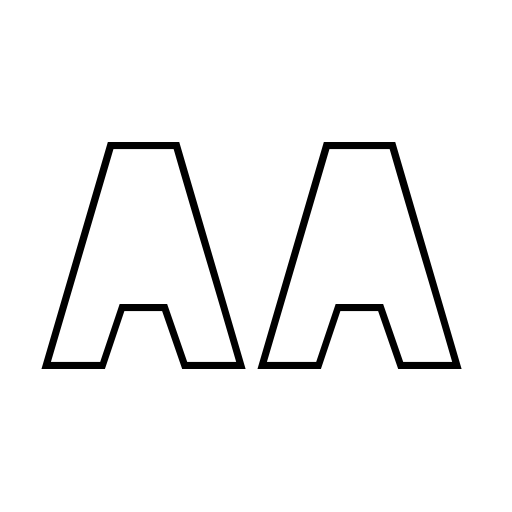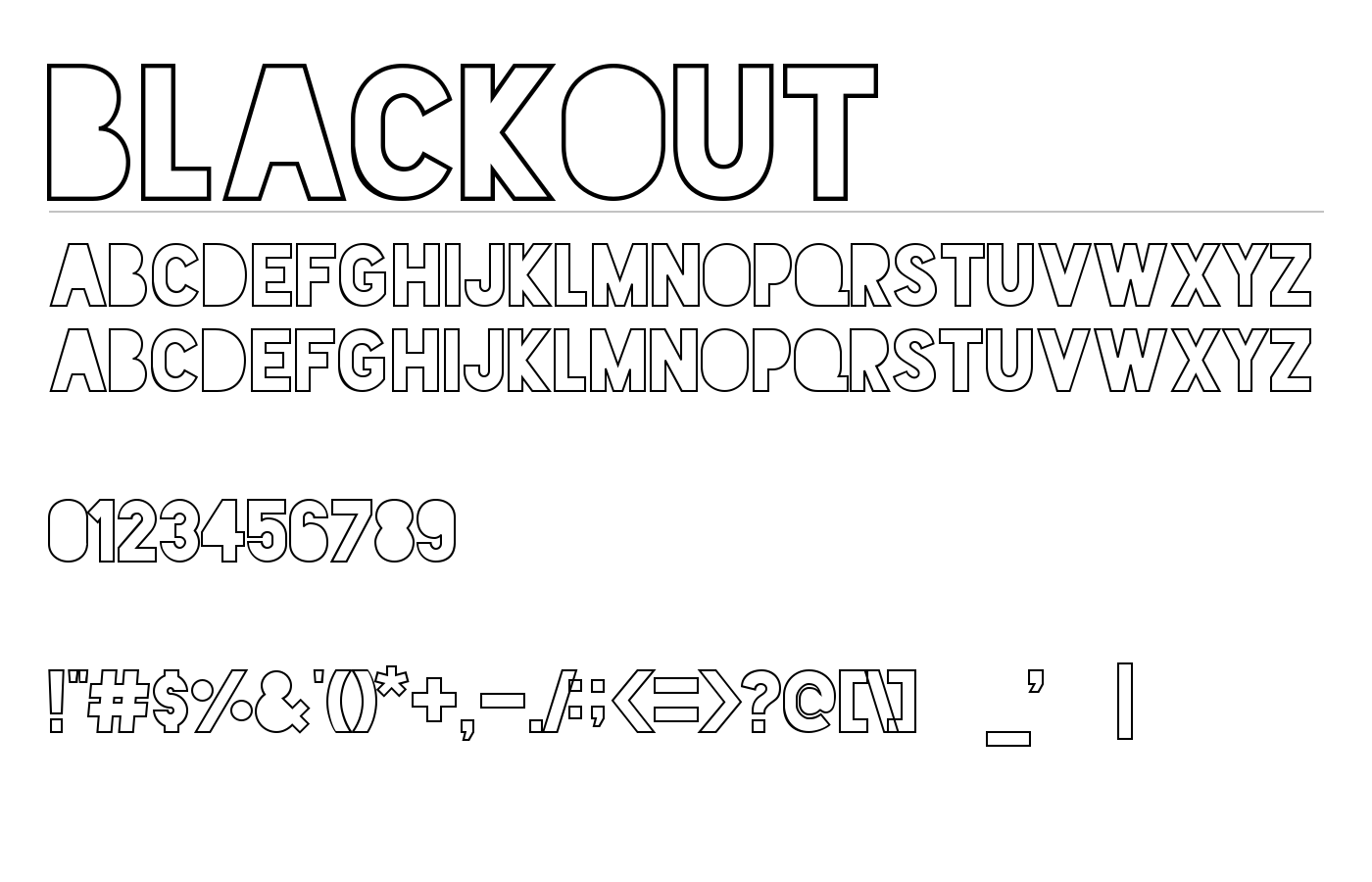
Blackout Font is a bold and modern sans serif display typeface featuring an outlined style with uniform stroke widths and geometric shapes. Its strong, wide letterforms and clean, open counters offer a striking, contemporary look that works well for headlines, branding, and posters where eye-catching impact is desired. This font brings a playful yet confident personality, making it ideal for creative projects that require a futuristic or urban edge.
Blackout Font
About Blackout Font
| Font family | Blackout Font |
| Designer | Tyler Finck |